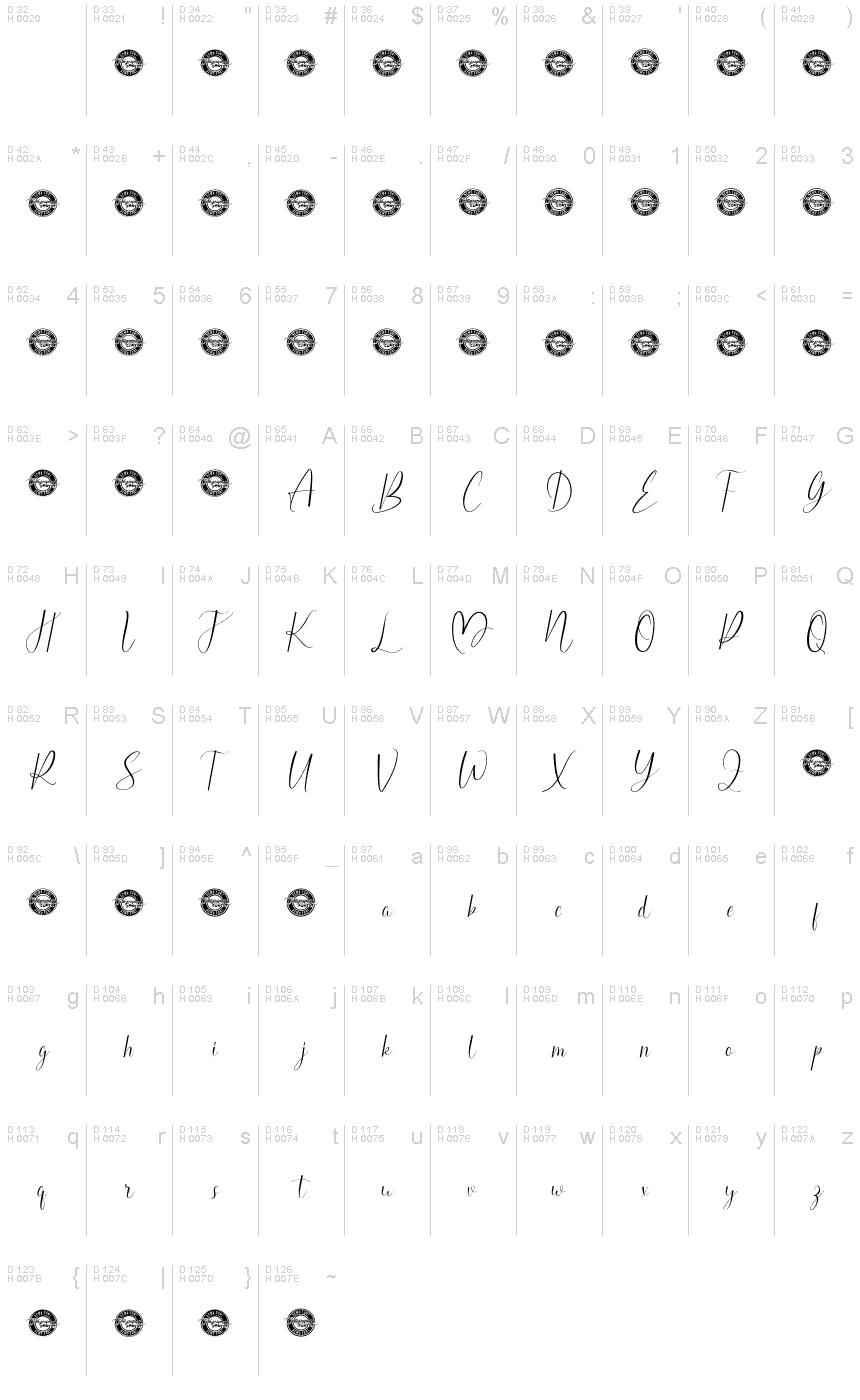
Happy Married Demo Script
Happy Married Script is a beautiful calligraphic font designed by Widiyanti & Sarah SP. It has a thin weight, making it perfect for crafting wedding invitations, romantic greeting cards and handwritten quotes.